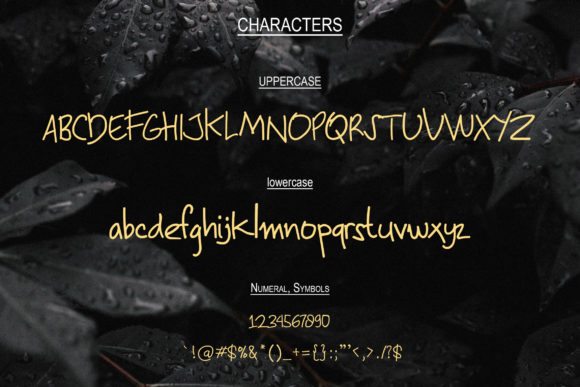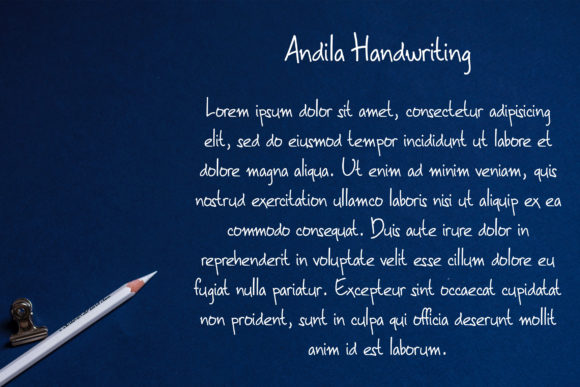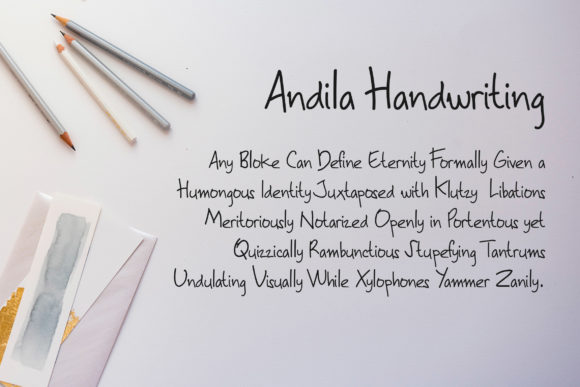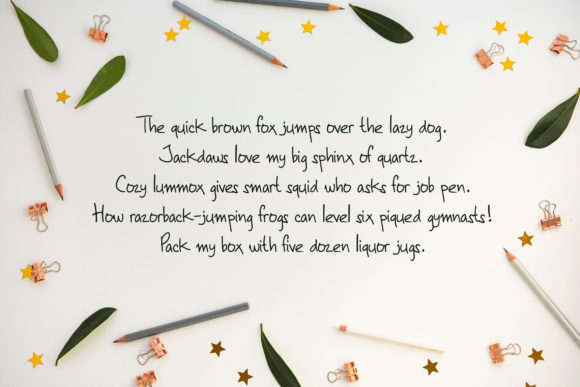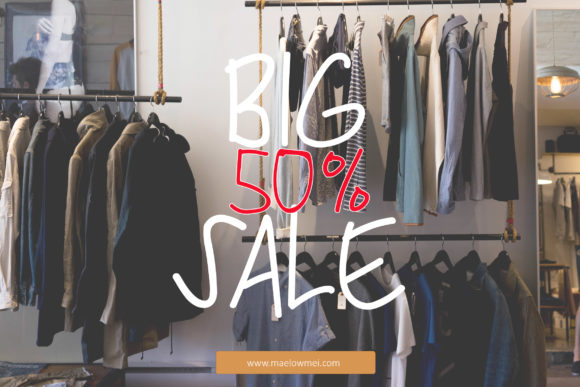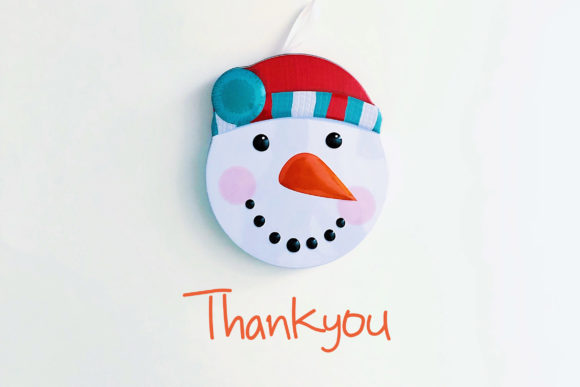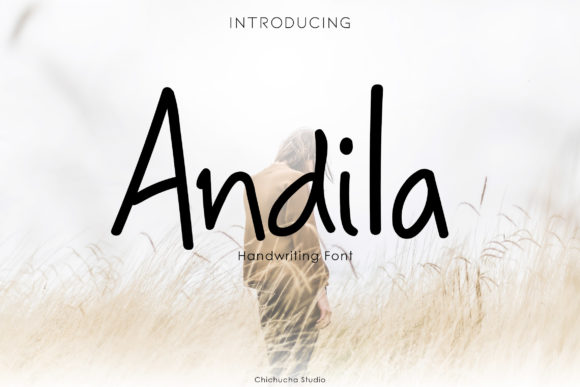
Discover the Delightful Andila Font: Adding a Touch of Whimsy to Your Designs
In the vast and ever-evolving world of typography, finding the perfect font that captures the essence of your project can be a daunting task. However, if you’re on the hunt for a typeface that exudes fun, playfulness, and a dash of creativity, look no further than the Andila Font. This charming font has been making waves in the design community, and for good reason. Andila feels fun and playful, making it a great font for a wide variety of applications, from lively branding projects to engaging digital content.
The Origins and Characteristics of Andila Font
The Andila Font, with its unique charm and character, has quickly become a favorite among designers and crafters alike. Its design is carefully crafted to evoke a sense of joy and spontaneity, making it perfect for projects that require a light-hearted touch. The font features smooth lines, friendly curves, and an approachable vibe that instantly connects with the audience. Whether you’re working on a children’s book, a playful advertisement, or a creative craft project, Andila’s versatility shines through.
Key Features of Andila Font
- Playful and Fun: Andila’s design elements are carefully crafted to bring a smile to the reader’s face, making it ideal for projects aimed at a younger audience or those looking to infuse their work with a bit of whimsy.
- Versatile: From digital media to print, Andila adapts seamlessly across various platforms and mediums, ensuring your design looks fantastic everywhere.
- Easy to Read: Despite its playful nature, Andila maintains a high level of readability, making it suitable for longer texts as well as headlines and titles.
- Customizable: The font comes with a range of weights and styles, allowing designers to experiment with different looks and tones to match their project’s needs.
Applications of Andila Font
The versatility of Andila Font means it can be used in a multitude of projects. Here are a few ideas to get you started:
- Branding and Logo Design: Use Andila to create a fun and memorable brand identity that stands out from the crowd.
- Digital Content: From blog posts to social media graphics, Andila can add a playful touch to your digital content, making it more engaging for your audience.
- Educational Materials: The font’s playful nature makes it perfect for textbooks, workbooks, and other educational resources aimed at children.
- Crafting and DIY Projects: Whether you’re designing patterns, labels, or instructions for your crafting projects, Andila can add a friendly and approachable feel.
Tips for Using Andila Font Effectively
To make the most of Andila Font in your designs, consider the following tips:
- Mix and Match: Experiment with different weights and styles of Andila to create visual hierarchy and add depth to your designs.
- Pair it Wisely: Andila pairs well with both serif and sans-serif fonts. Look for contrasting fonts that complement its playful nature.
- Consider Your Audience: While Andila is versatile, ensure it aligns with your project’s tone and audience. It’s particularly effective for projects targeting children or a younger demographic.
The Andila Font is a delightful addition to any designer’s toolkit, offering a unique blend of playfulness, versatility, and readability. Whether you’re a professional designer or a crafting enthusiast, Andila can help bring your projects to life with its fun and engaging vibe. So, why not give Andila a try and see how it can add a touch of whimsy and creativity to your work?